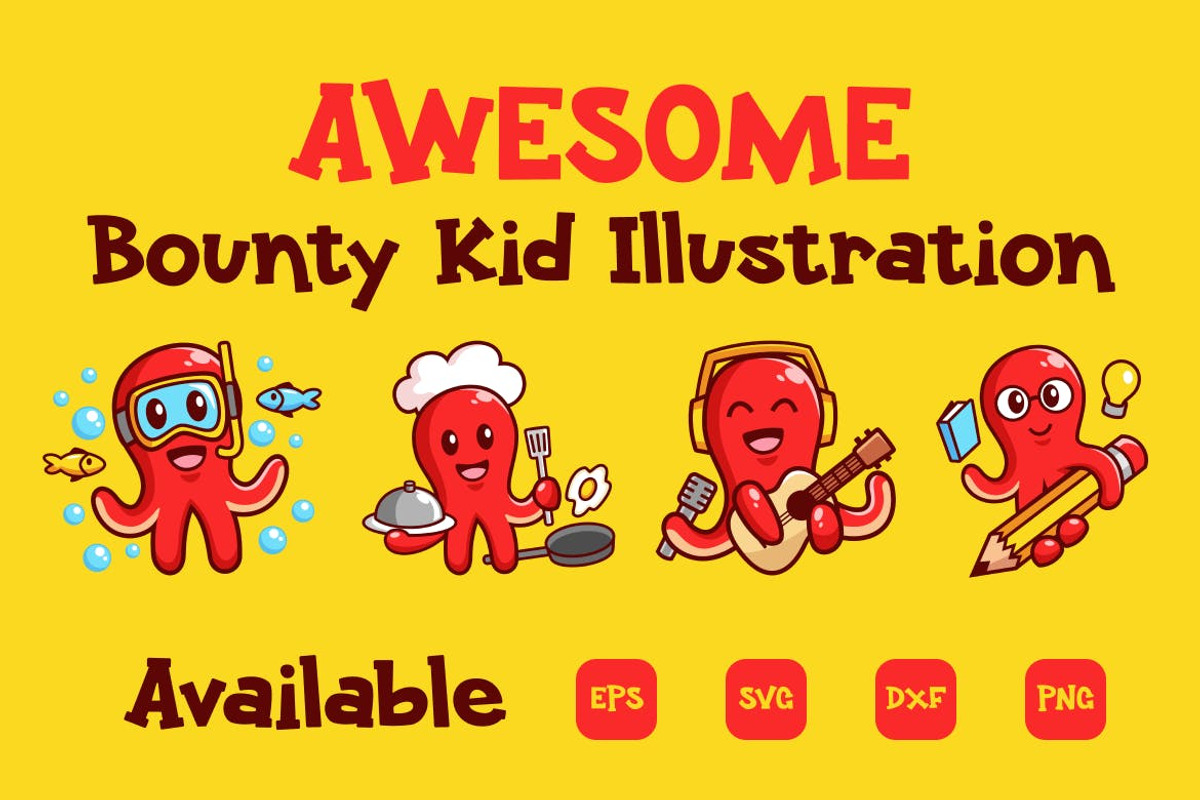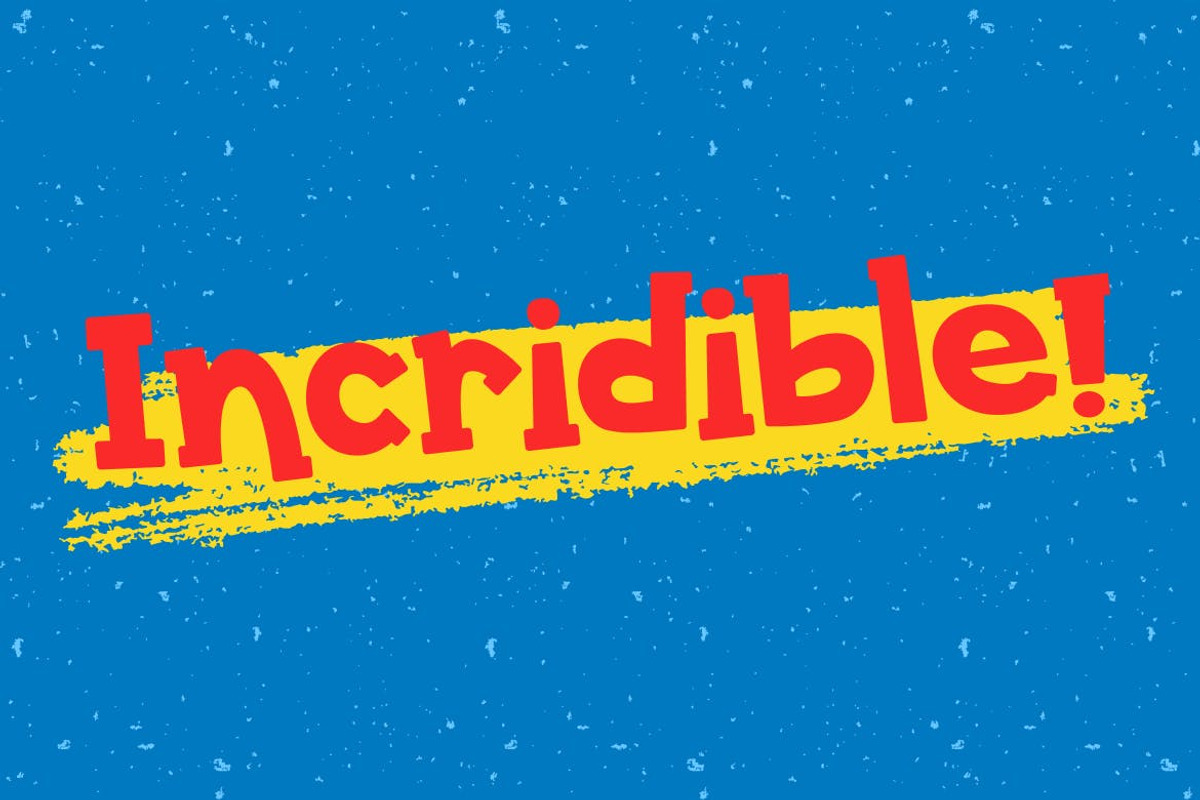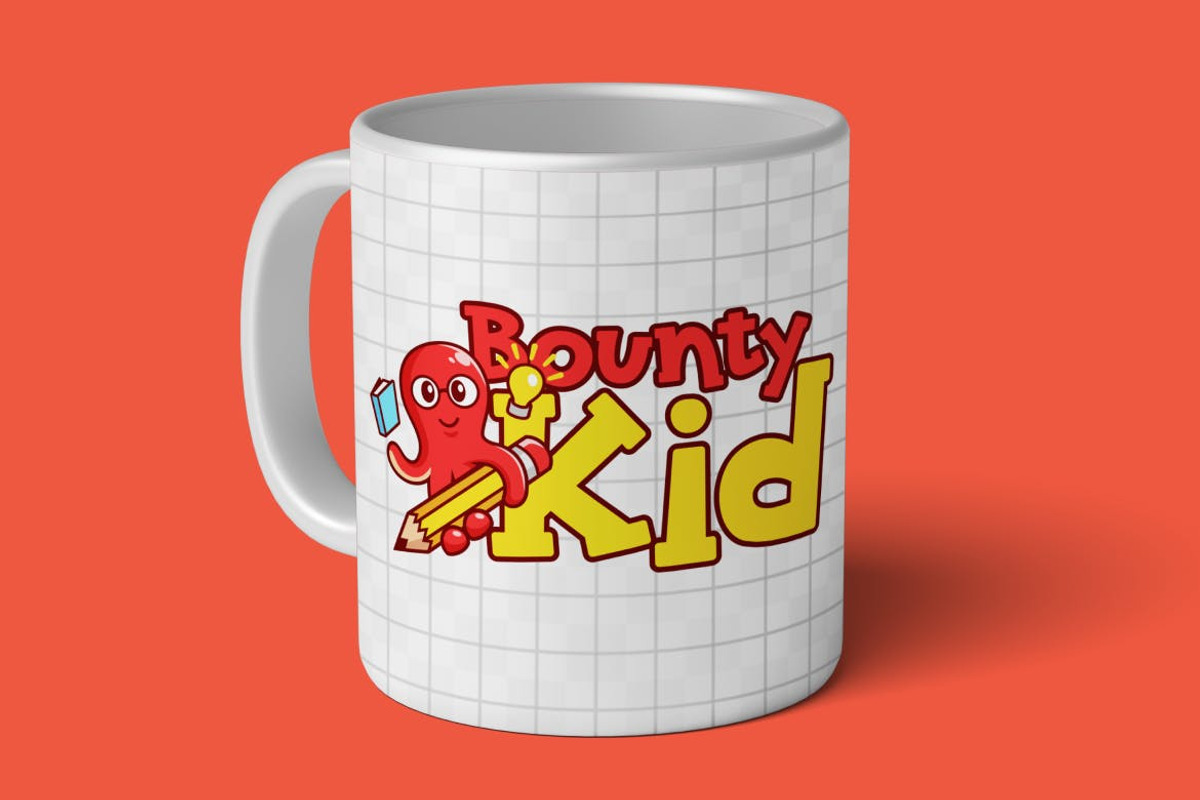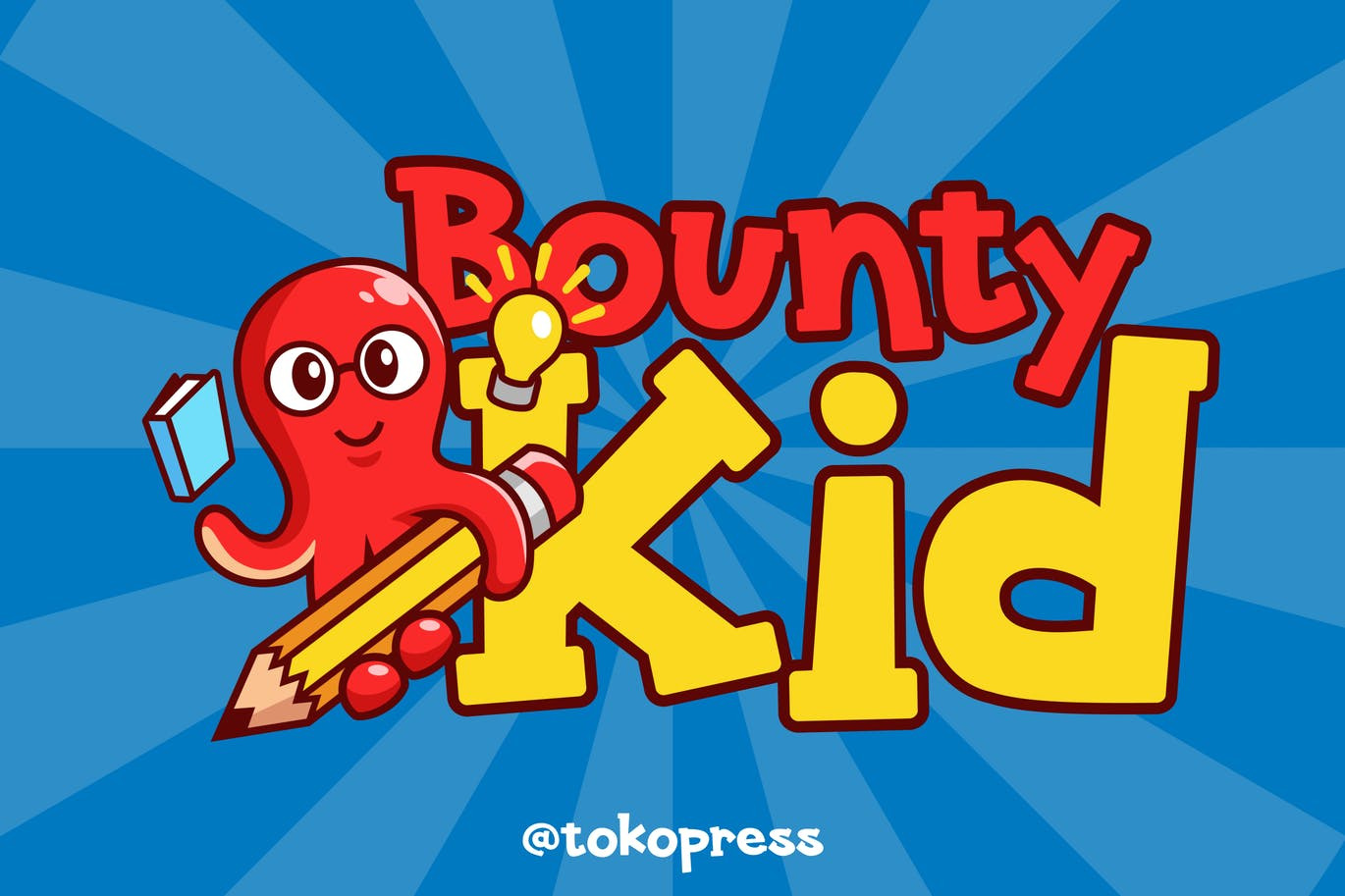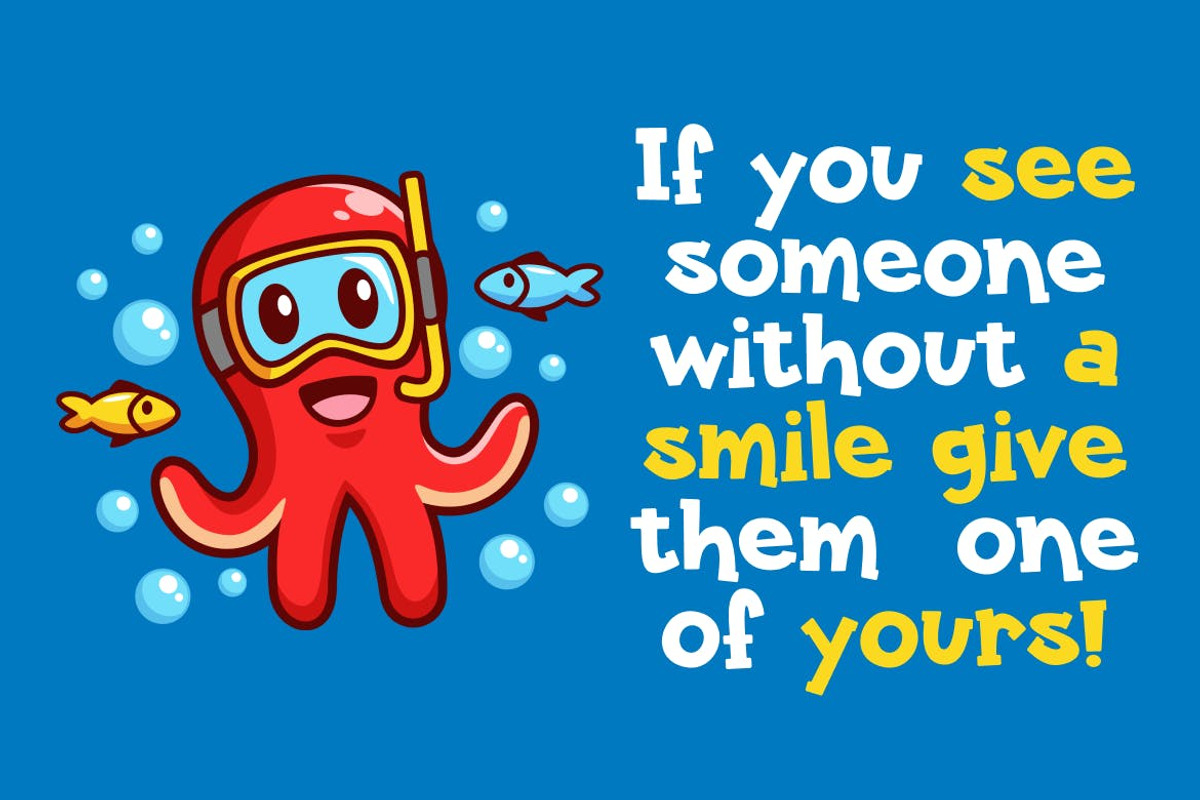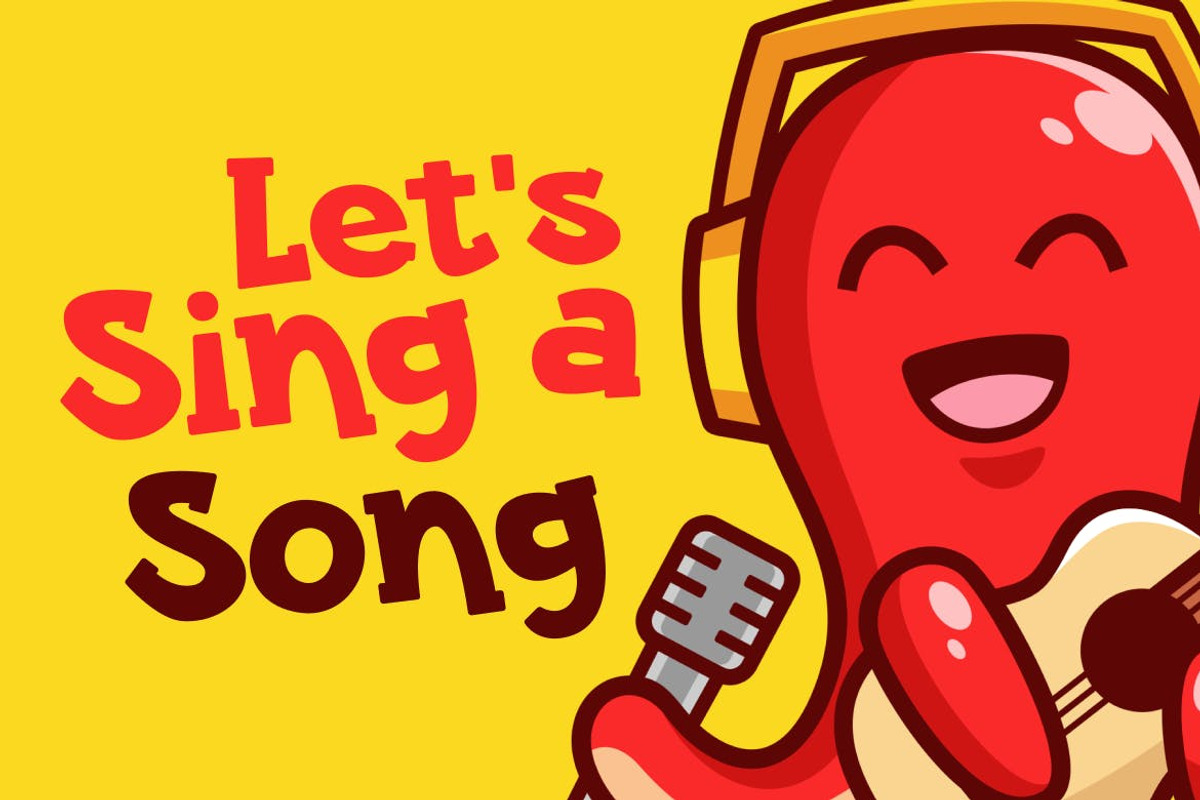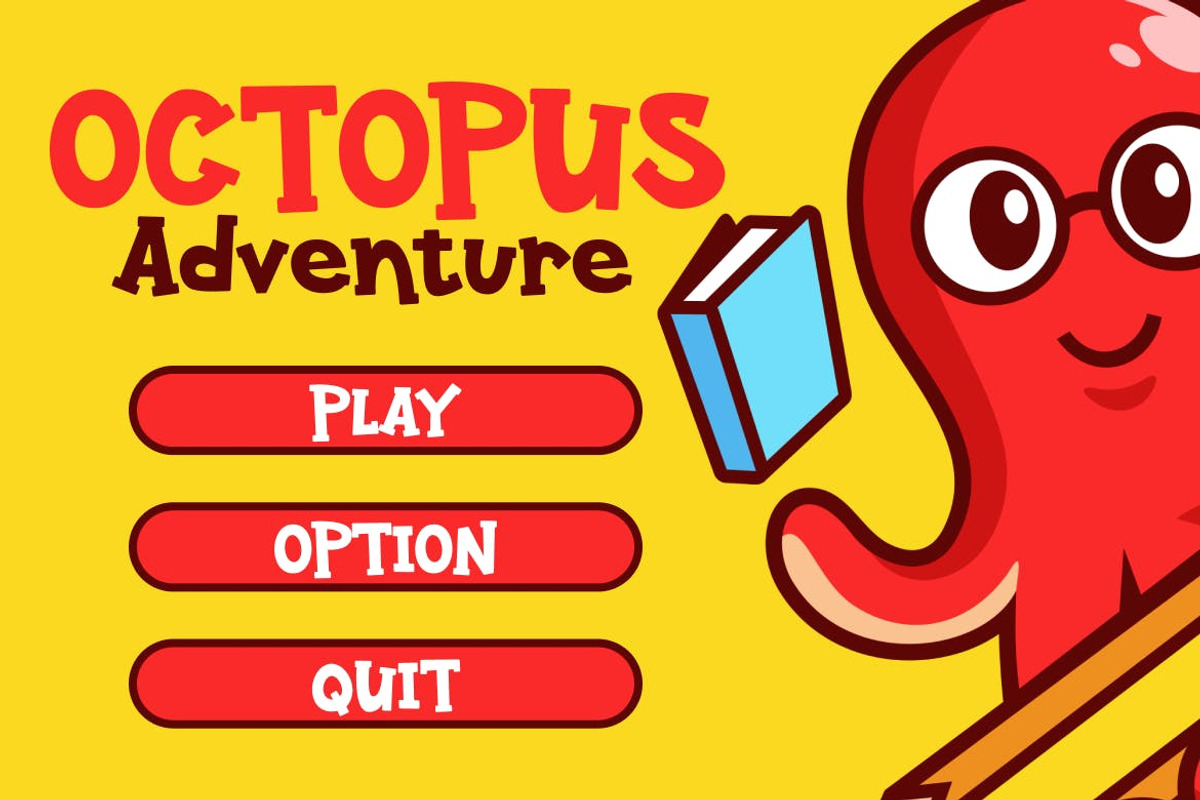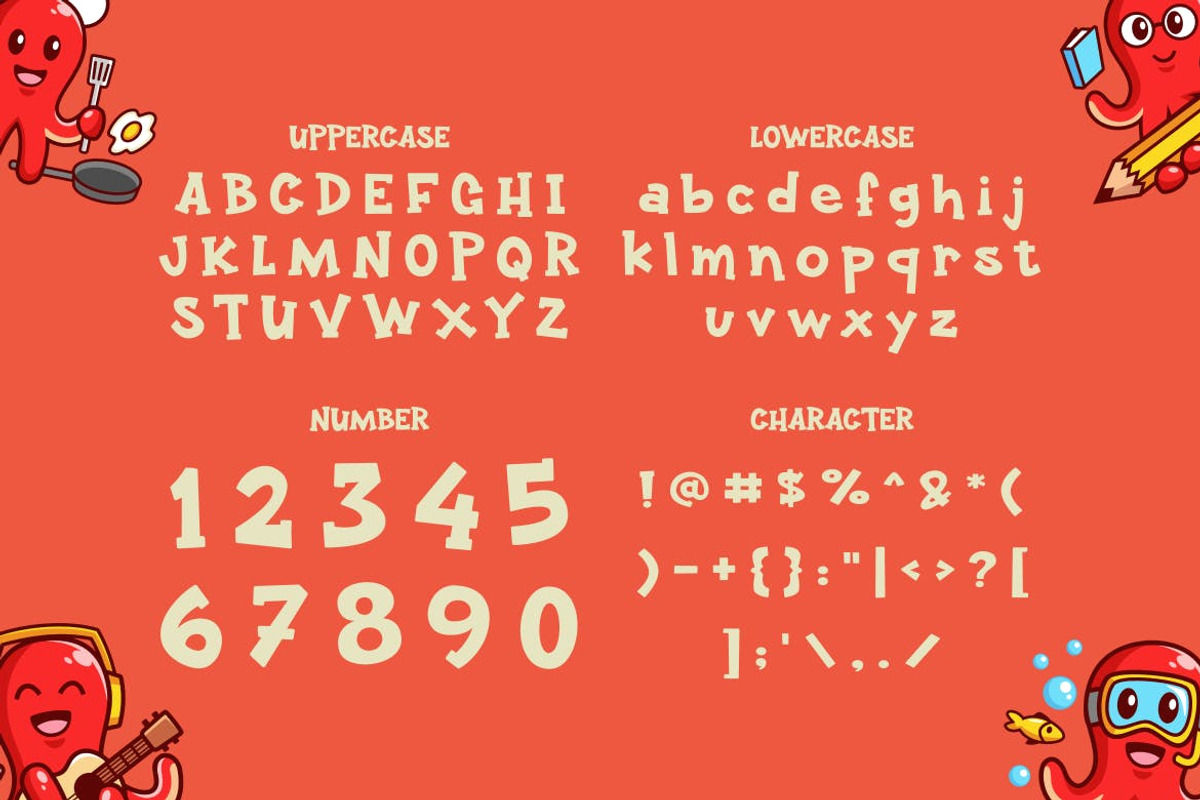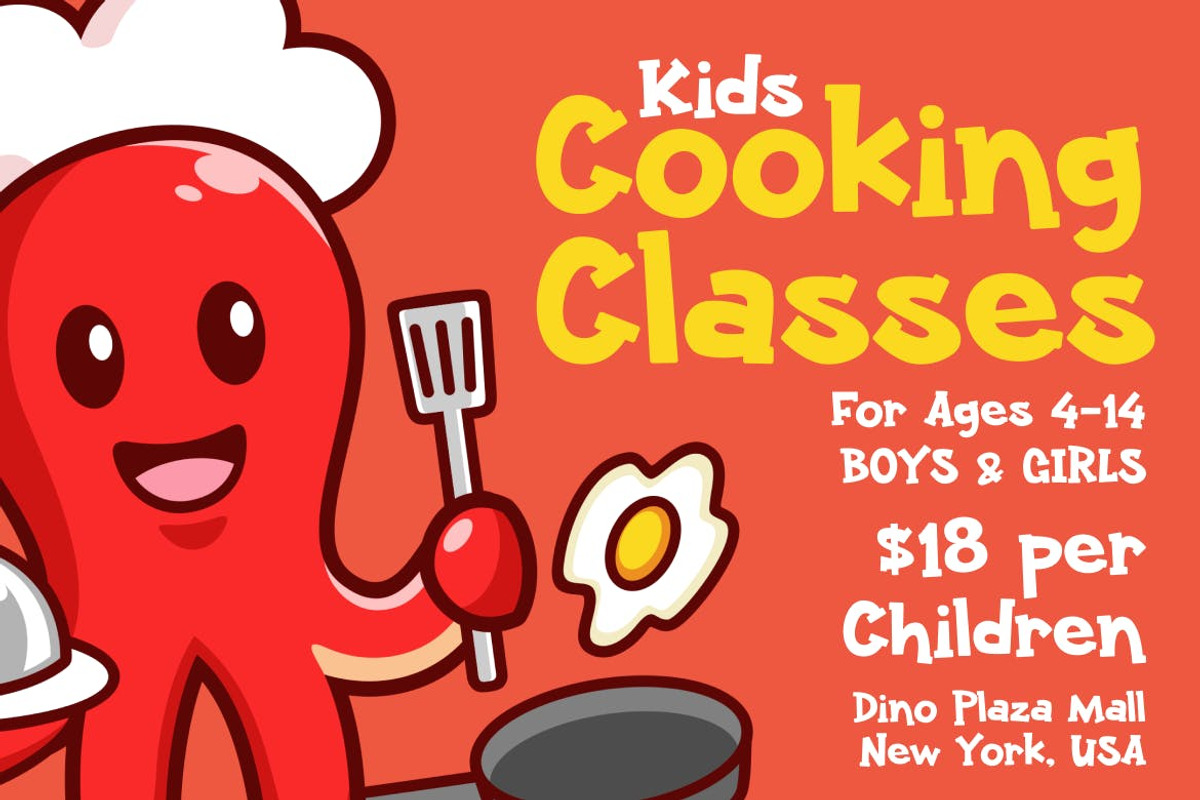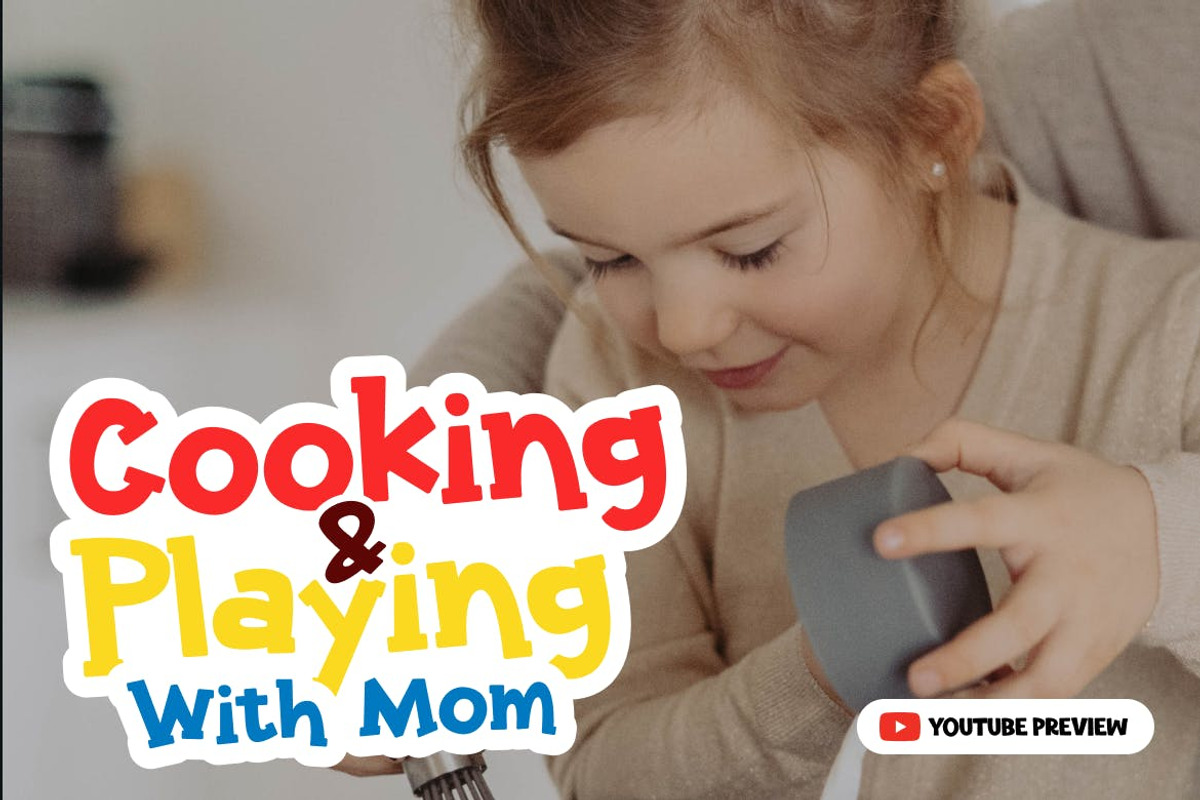
Bounty Kid - Cartoon Font
Bounty Kid - Cartoon font
Happiness and joy are what children world. And Bounty Kid is all about that. It brings a smile all over the place.
Suit perfectly for kids books market, online games, stationary, school supplies font, poster, movie title, youtube covers, youtube thumbnails, social media page covers and so on...